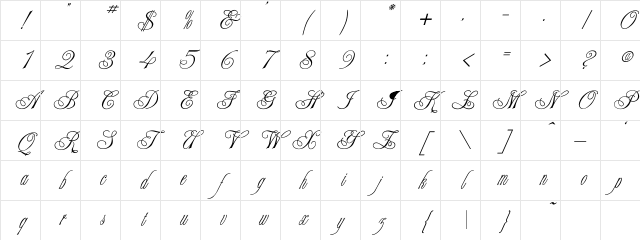
CampaignScript Regular
Design Context for CampaignScript
CampaignScript flows with the natural rhythm of handwritten lettering, making it ideal for designs that call for warmth and personal expression.
Font Pairing: Combine CampaignScript with a simple geometric sans for maximum contrast - the tension between flowing curves and clean structure is a classic typographic pairing.
Pro Tip: Use CampaignScript for short runs of text - names, titles, or taglines. Extended body copy in script faces tires the eye quickly.